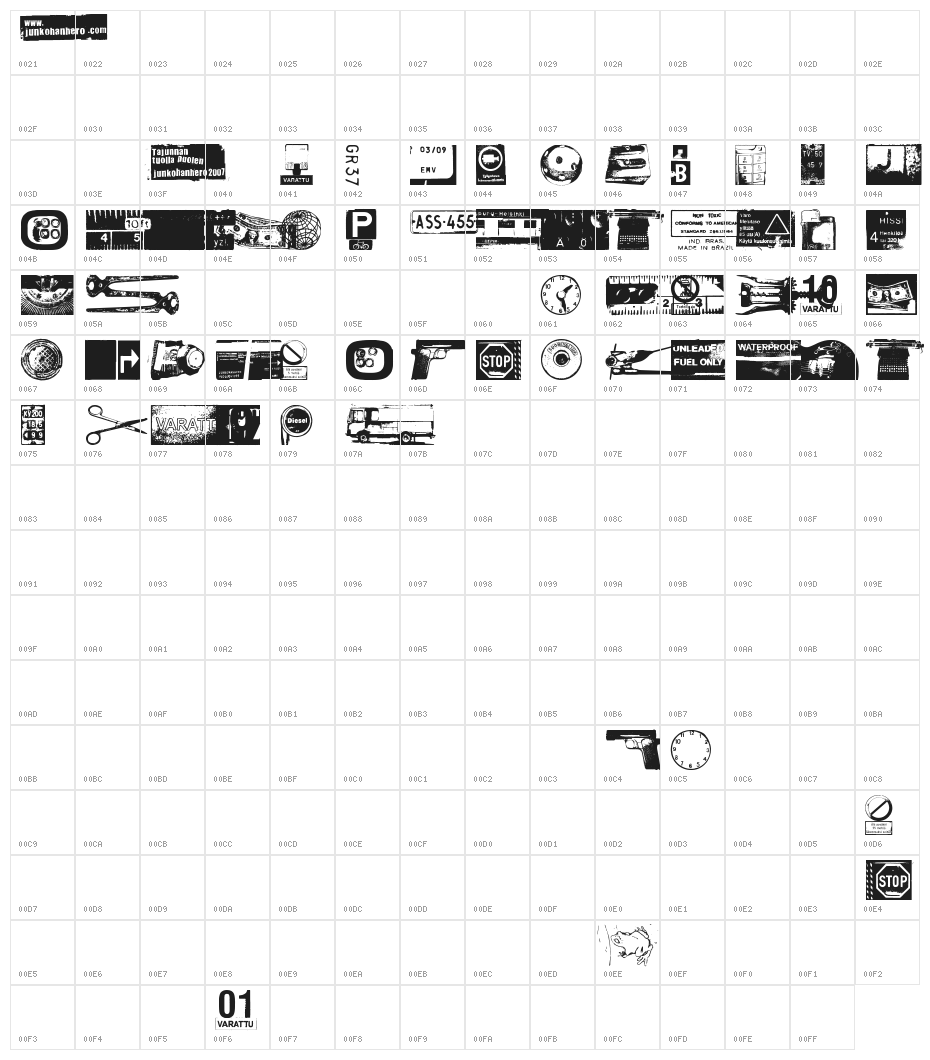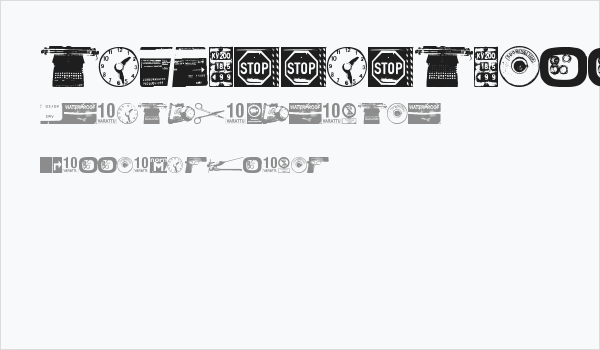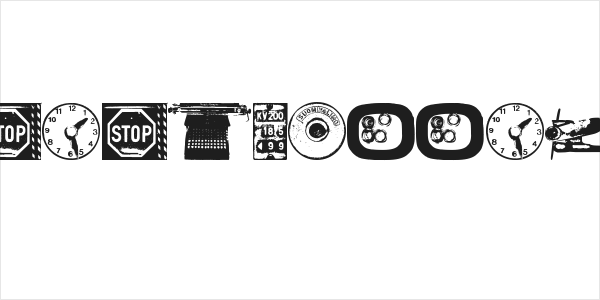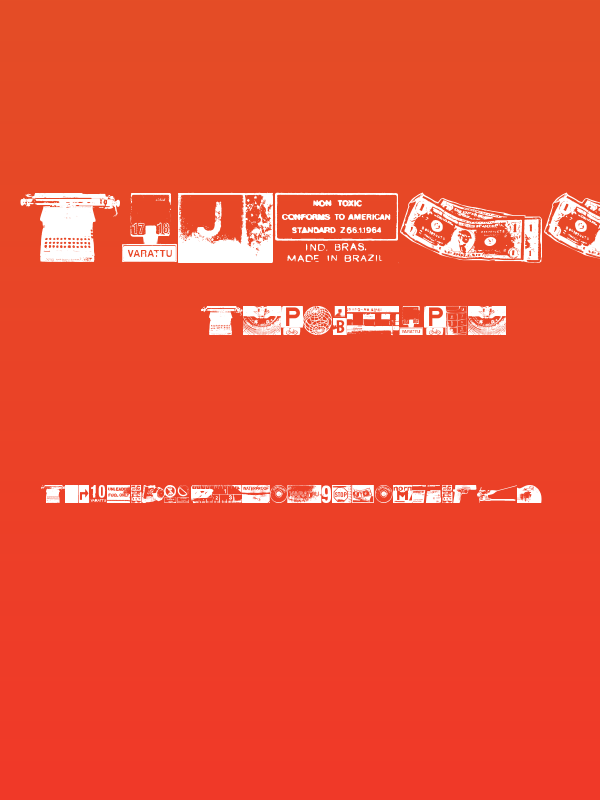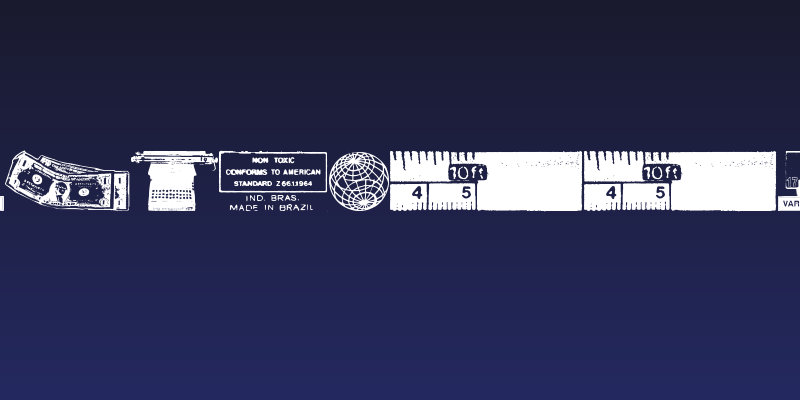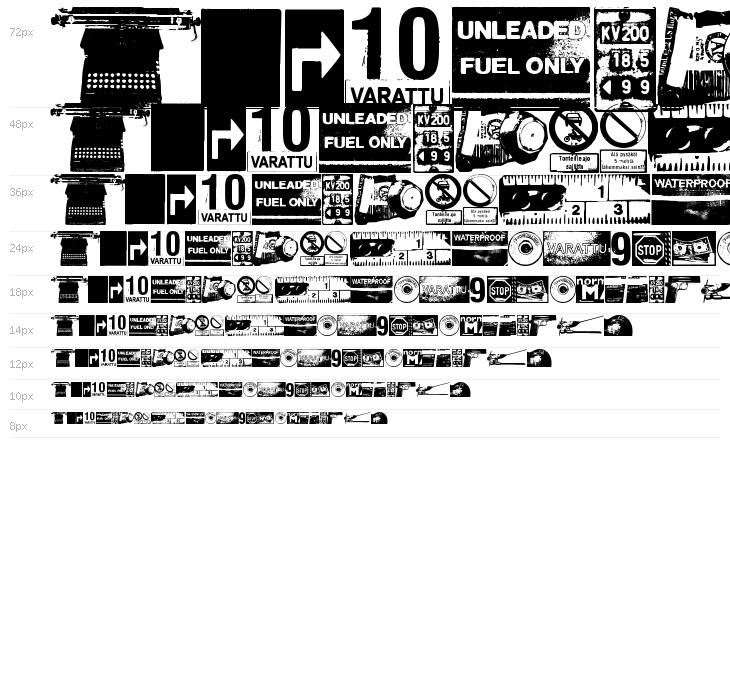
Tajunnan tuolla puolen Font
This font is a highly decorative and eclectic collection of characters, each designed with unique graphic elements and textures. The characters are composed of various objects and symbols, creating a collage-like appearance. This unconventional style gives the font a playful and artistic feel, making it stand out with its bold and visually engaging design. The characters are not uniform, with each letter and number featuring distinct imagery, such as tools, signs, and everyday objects, adding a layer of complexity and creativity.
Use CaseLogos, Posters, Artistic Branding
Proposed ProjectsIdeal for creative projects such as posters, album covers, and artistic branding where a distinctive and eye-catching font is needed.